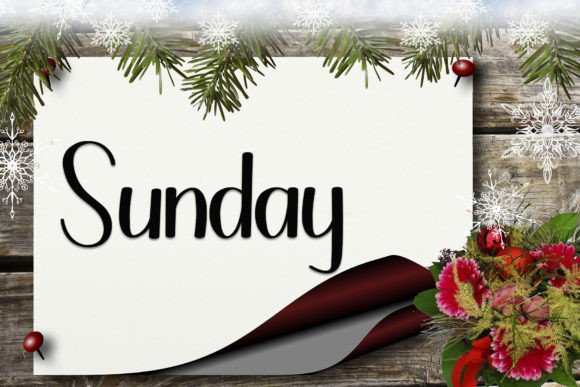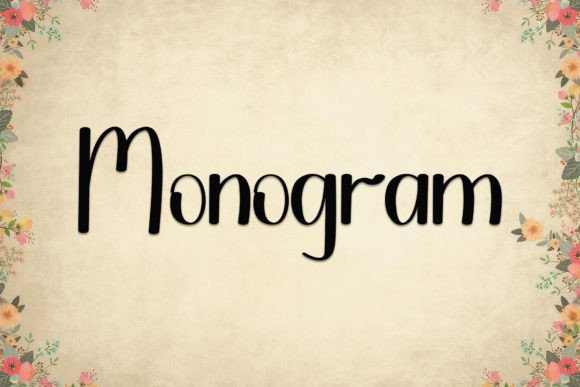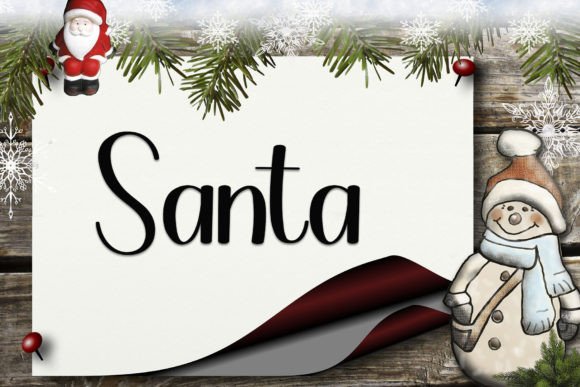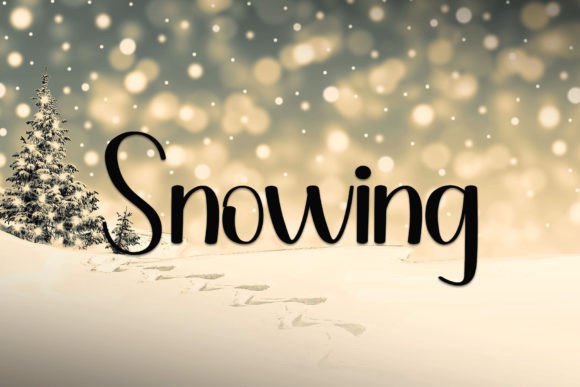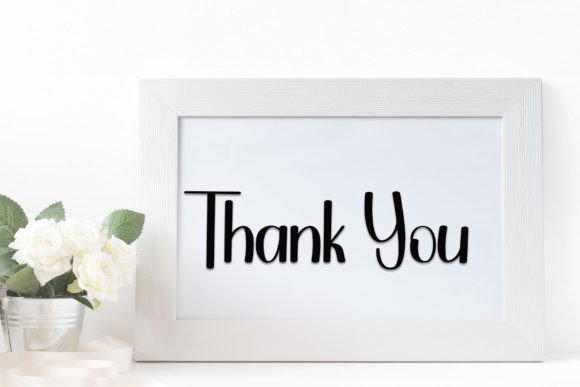
Unlock the Timeless Charm of the Bracelet Font
As you sit at your desk, surrounded by sketches, color palettes, and design concepts, you often find yourself in search of the perfect font to bring your vision to life. It’s in these moments that you stumble upon a hidden gem, a handwritten font that speaks directly to your creative soul.
Meet the Bracelet Font, a stunning and elegant handwritten font that adds an extra touch of sophistication to any project. With its incredibly distinct and timeless style, it’s the perfect choice for designers looking to create spectacular designs that leave a lasting impression. Whether you’re working on a wedding invitation, a logo, or a branding campaign, the Bracelet Font is sure to elevate your work and make it truly unforgettable.
What sets the Bracelet Font apart is its versatility and ability to add a personal touch to any design. Its unique style and charm make it a valuable asset for designers, allowing them to express their creativity and bring their ideas to life in a way that’s both beautiful and meaningful.
Key Features of “Bracelet Font”
• Unique Characteristics: Bracelet Font features a unique, cursive design with a mix of geometric and organic elements, giving it a modern and stylish look.
• Language Support: Bracelet Font supports a wide range of languages, including Latin, Cyrillic, and Greek scripts, making it a versatile choice for global branding and design projects.
• Scalability: The font is designed to be highly scalable, maintaining its quality and legibility even at small font sizes, making it ideal for use in digital applications such as mobile apps, websites, and social media.
Bracelet Font Review
As a designer, I’ve had the opportunity to work with a wide range of fonts, and I must say that Bracelet Font is quite an interesting choice. ✨ Here are some of its strengths:
• Unique aesthetic – Bracelet Font has a distinct, whimsical feel that sets it apart from more traditional fonts.
• High legibility – Despite its unconventional design, the font is surprisingly easy to read, making it a great choice for body text.
• Limited font sizes – While the font is highly customizable, it’s limited to a specific range of sizes, which may not be suitable for all design applications.
• Not ideal for headings – Due to its unique design, Bracelet Font may not be the best choice for headings, where a more traditional font is often preferred.
Overall, I’d say that Bracelet Font is a great choice for designers looking to add some visual interest to their projects. While it may not be suitable for every design application, it’s a versatile font that can add a touch of personality to your work.
The Bracelet Font is ideal for:
• Crafting a unique and eye-catching brand identity.
• Designing social media graphics and posts.
• Creating presentation slides and documents.
Remember to experiment with different font sizes, colors, and styles to get the most out of the Bracelet Font.
Is Bracelet Font available in different font weights?
Yes, Bracelet Font is available in a range of font weights, including light, regular, medium, bold, and black. This allows designers to choose the perfect weight to match their project’s style and tone.